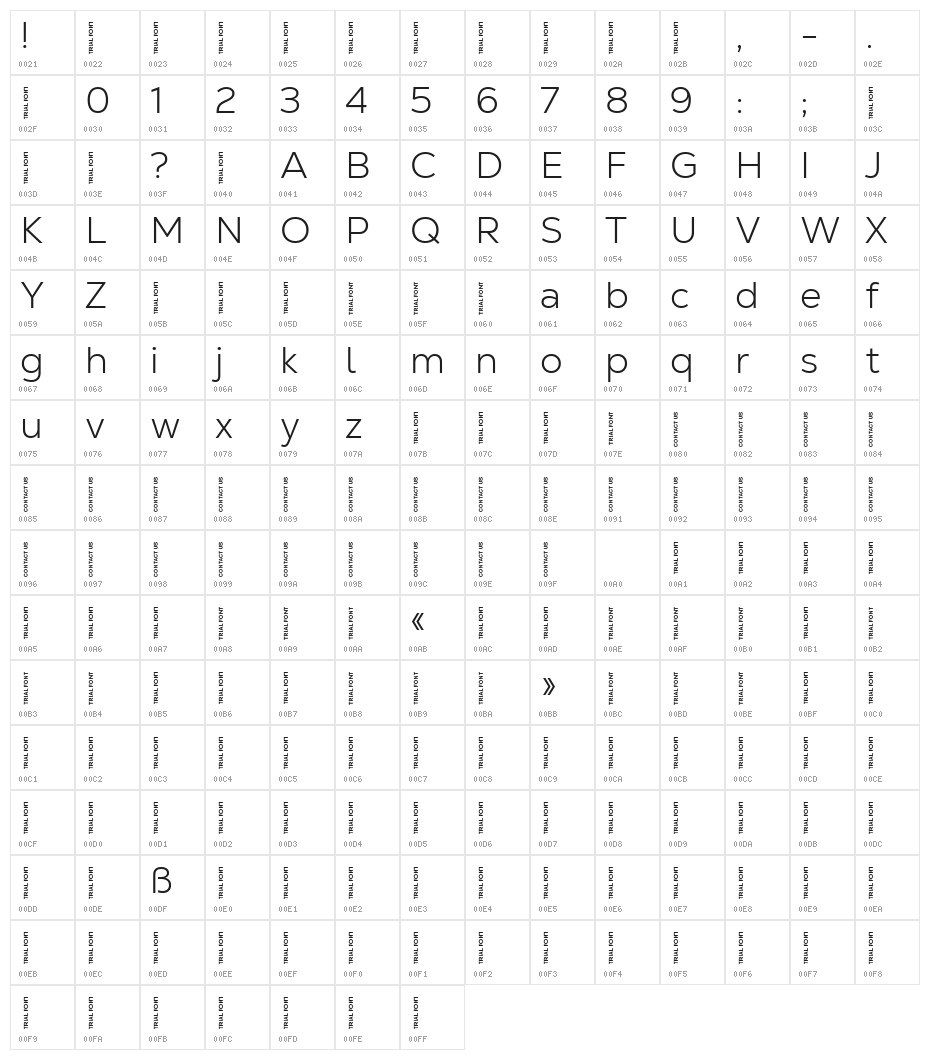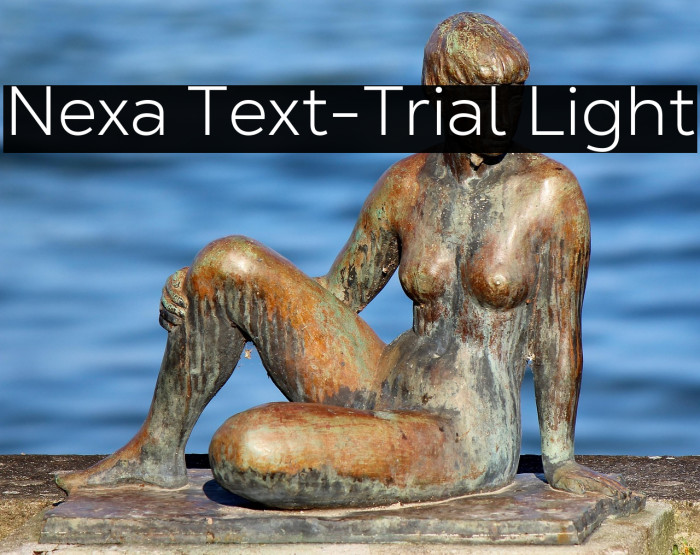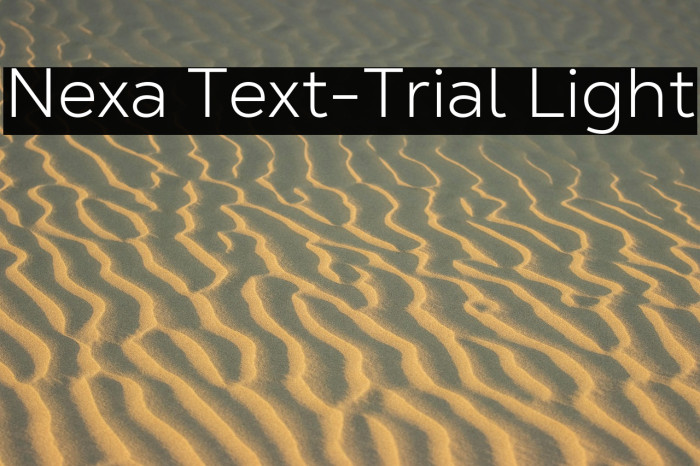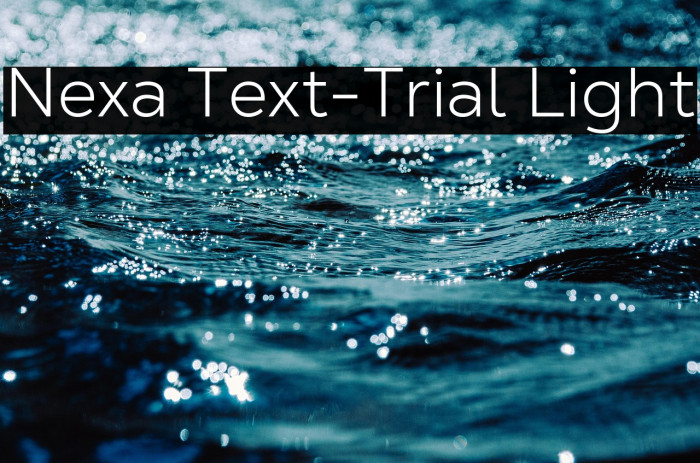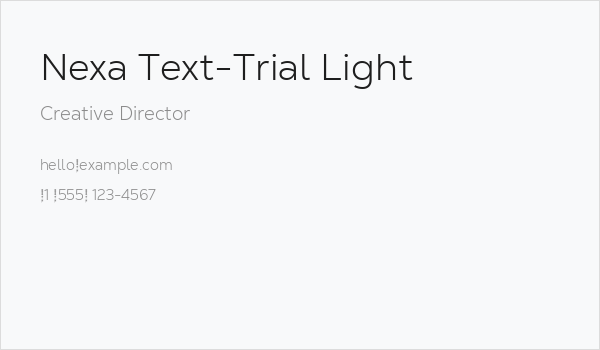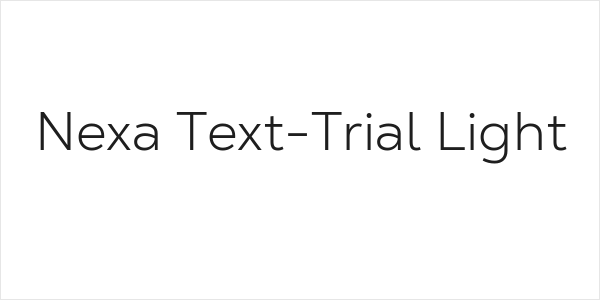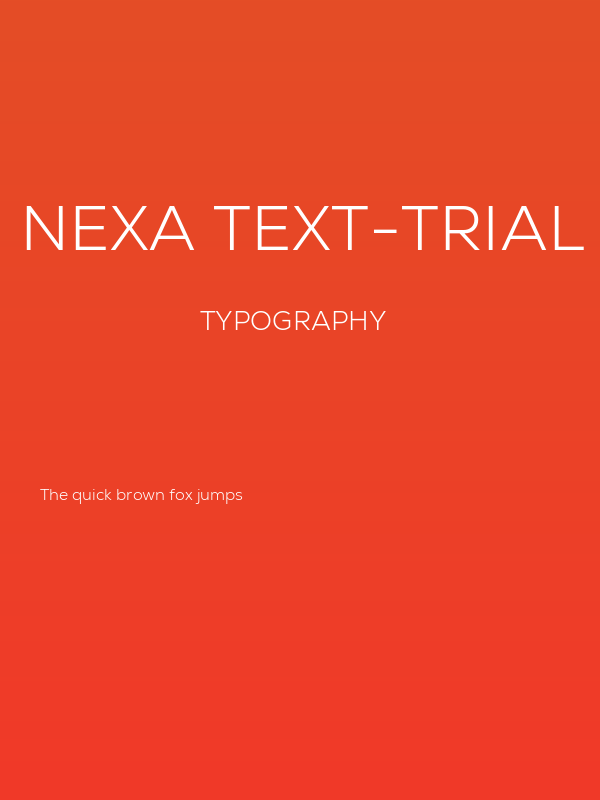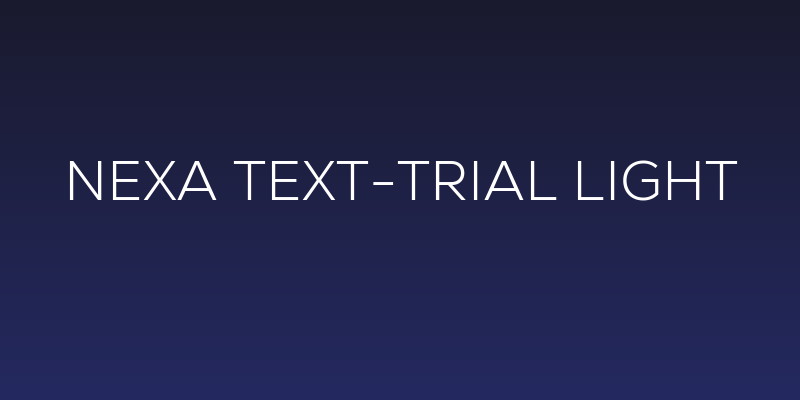
Nexa Text-Trial Light Font
Nexa Text-Trial Light Description
This font features a clean and modern sans-serif design with a geometric structure. The characters are evenly spaced, providing a balanced and harmonious appearance. The strokes are consistent in weight, contributing to a uniform look across all characters. The font's simplicity and clarity make it highly legible, suitable for both digital and print media. The rounded edges of the letters add a touch of softness, enhancing its friendly and approachable feel. It is versatile, making it ideal for a wide range of applications, from branding to user interfaces.